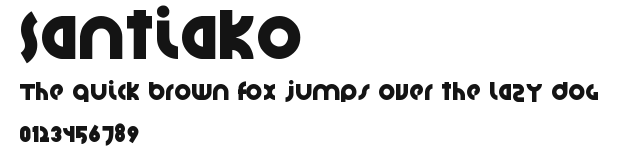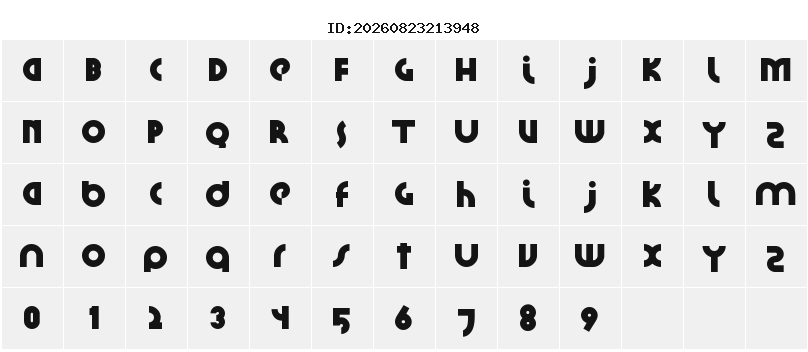
• Font Name: Santiako
• Font Style: Gras
• Full Font Name: Santiako Bold
About Santiako.ttf
Santiako.ttf is a modern, elegant sans-serif font designed for ultimate readability and visual harmony. Perfect for branding, headlines, web design, and print materials.